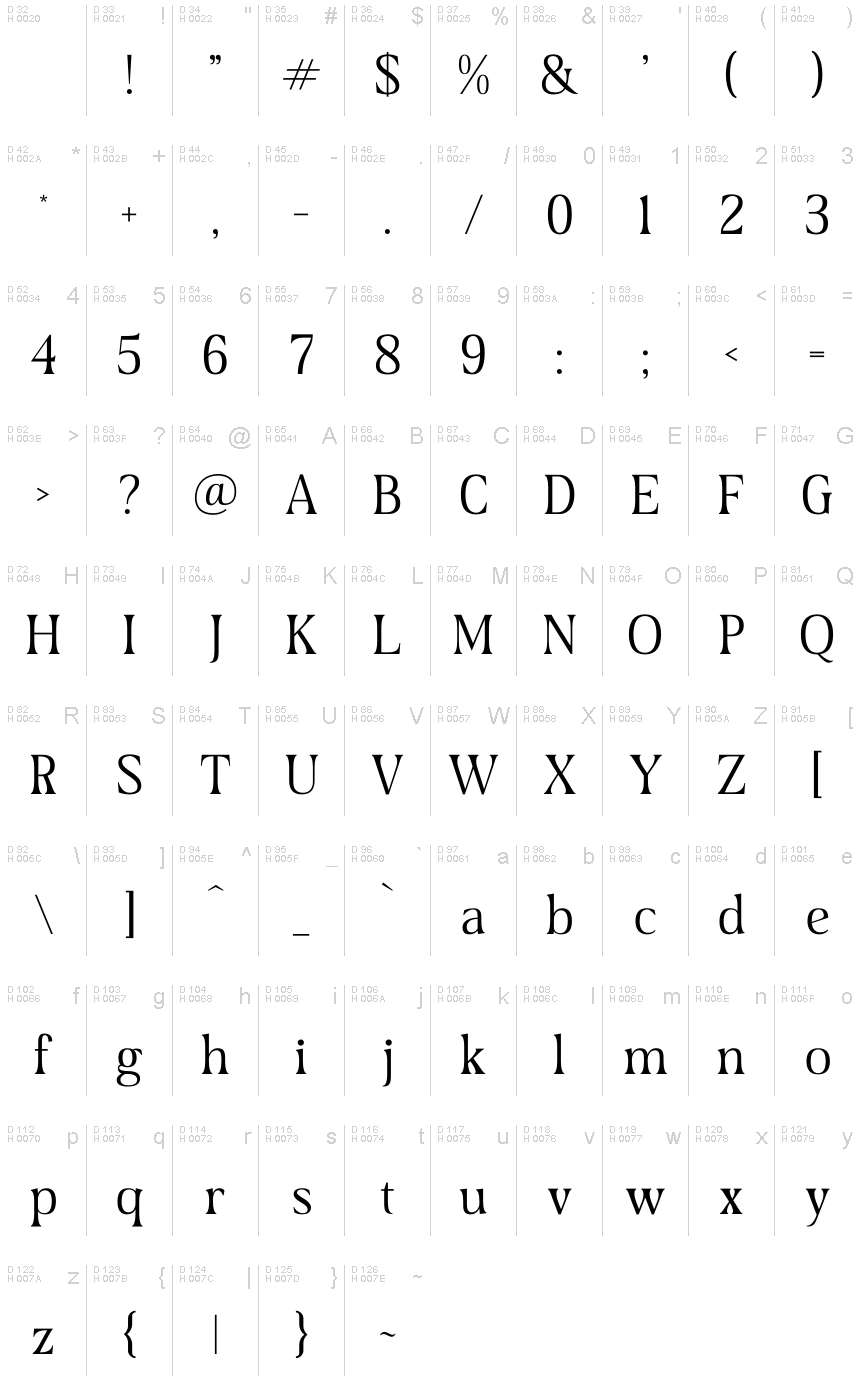
Dairing
Dairing, a captivating serif font created by the talented designers at Storytype Studio, exudes a sophisticated elegance that commands attention. The striking letterforms feature graceful curves and distinctive serifs, effortlessly blending timeless tradition with modern refinement. This font's alluring aesthetic evokes a sense of timeless artistry, making it an ideal choice for editorial layouts, book covers, and high-end branding projects.
Dairing's versatility extends beyond its visual appeal, as its well-balanced proportions and legibility make it a versatile choice for a wide range of applications. From formal invitations to artisanal product packaging, this font has the ability to elevate any design, adding a touch of timeless charm and sophistication that is sure to captivate the audience.